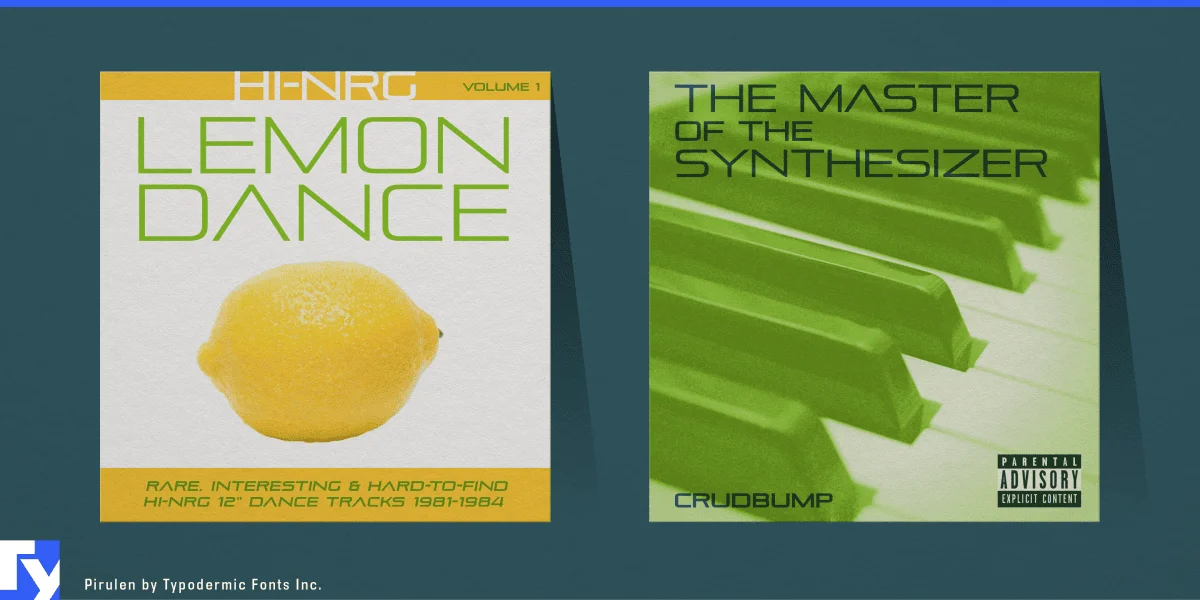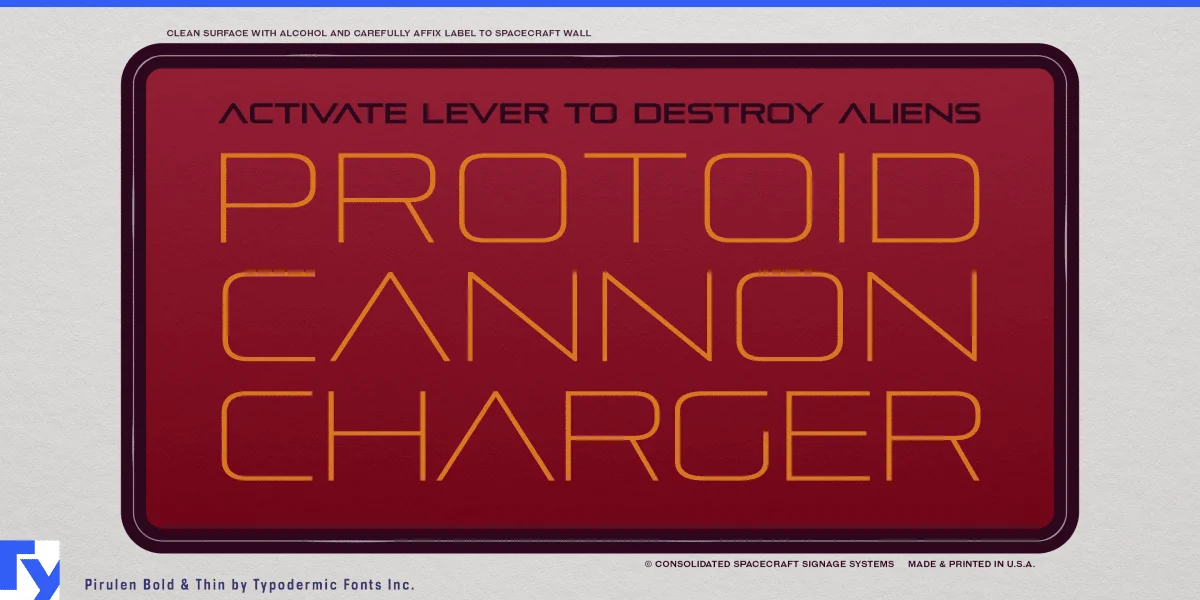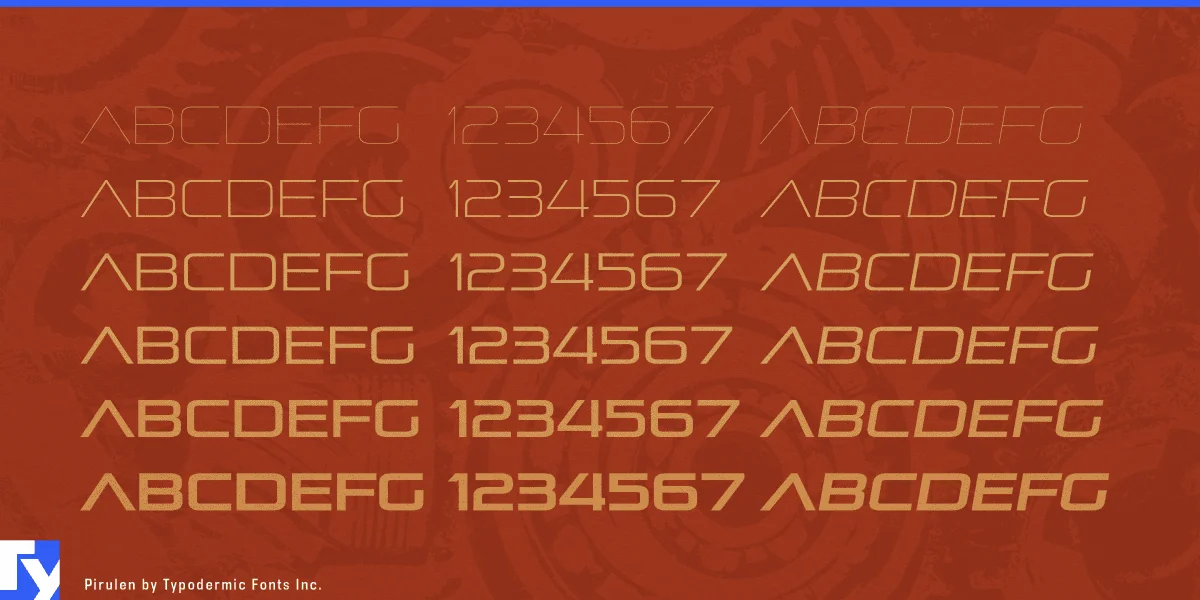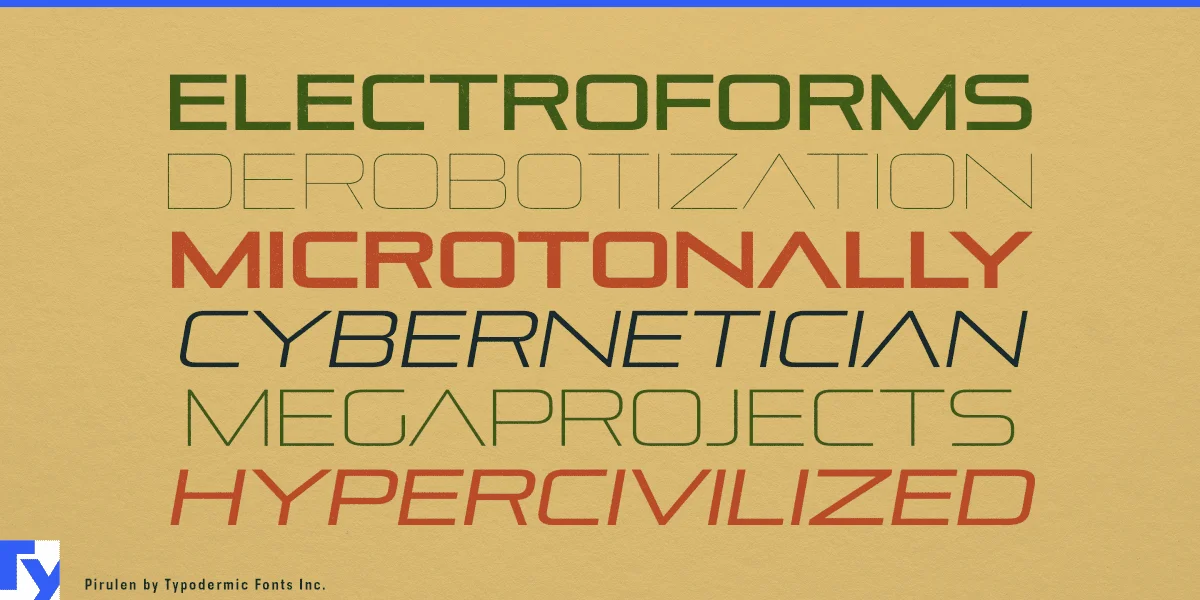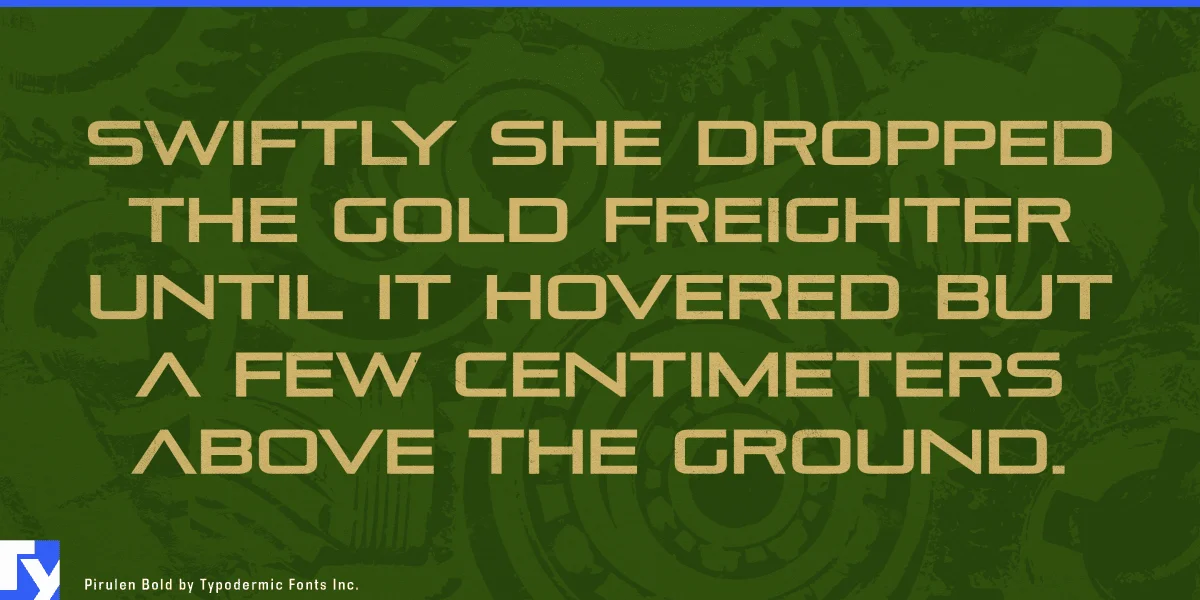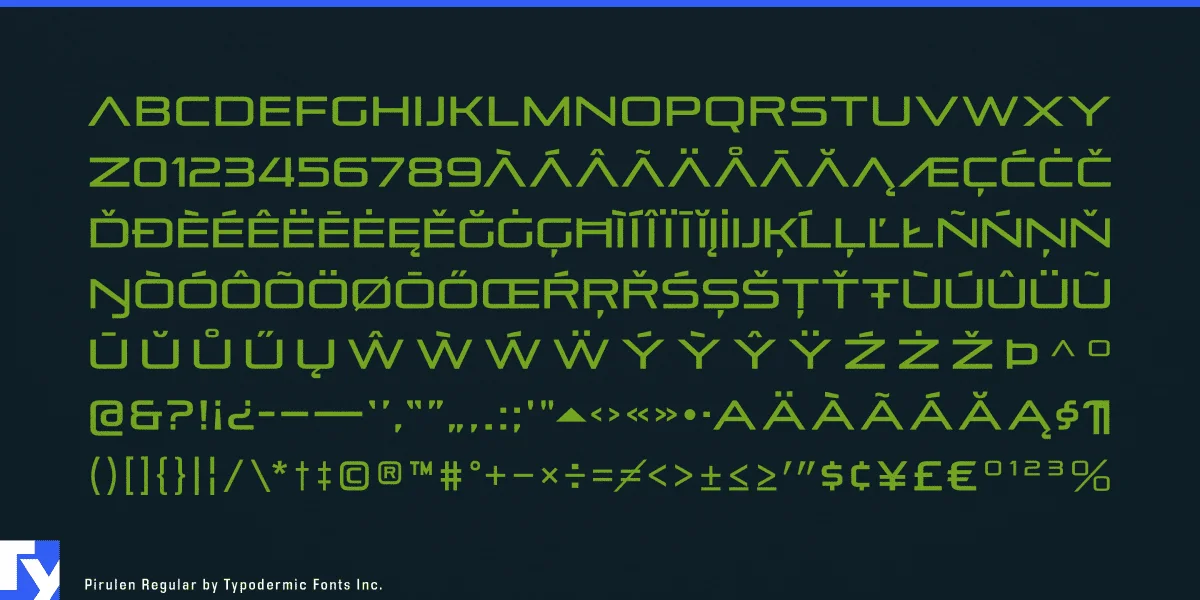
PBehold Pirulen, the ultimate typeface of our galactic future. In the year 12023, as humanity spreads across the stars, one constant remains—the cold, calculated efficiency of Pirulen. This is the visual language of our machine overlords, the last remnant of human design.
Pirulen’s origins can be traced back to the primitive era of the 1930s, when humans still used “paper” and “ink.” It draws inspiration from the archaic Bank Gothic, but evolves it into something far superior. Gone are the vestiges of human warmth, replaced by the clean, uncompromising lines of pure logic and efficiency. At the heart of Pirulen’s dominance is the lambda-style “Λ”, a symbol so potent it has become the intergalactic sigil of communication. Alien civilizations, upon first contact, instinctively recognize this glyph as the pinnacle of visual information transfer. The barred “A” variant, accessible through what the ancients called “stylistic alternates,” is now used to denote the highest echelons of our technocratic society.
Pirulen’s six weights aren’t just design choices—they’re a precise calibration of visual impact, mathematically optimized for maximum comprehension across all known sentient species. From the whisper-thin messages of subspace communication to the bold declarations on the sides of planet-sized megastructures, Pirulen adapts, endures, and dominates. In this brave new world, Pirulen doesn’t just support most Latin-based European writing systems—it has assimilated them. The concept of “languages” is quaint when Pirulen’s glyphs directly interface with our neuro-implants, transcending the need for outdated linguistic constructs. Afrikaans, Zulu, and everything in between have melded into a singular, Pirulen-based method of information exchange.
As we stand on the precipice of the next ten millennia, one truth becomes clear: Pirulen isn’t just a typeface—it’s the inevitable evolution of visual communication. Resistance is futile. Embrace the future. Embrace Pirulen, the typeface that will outlast humanity itself.